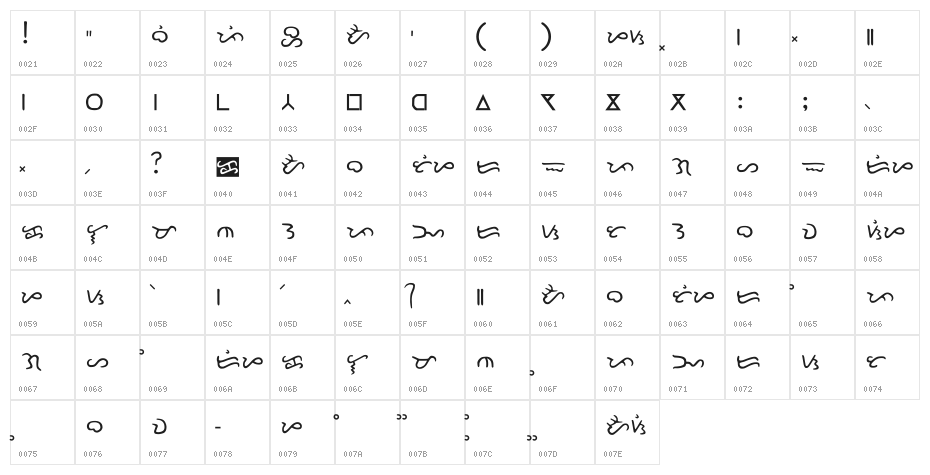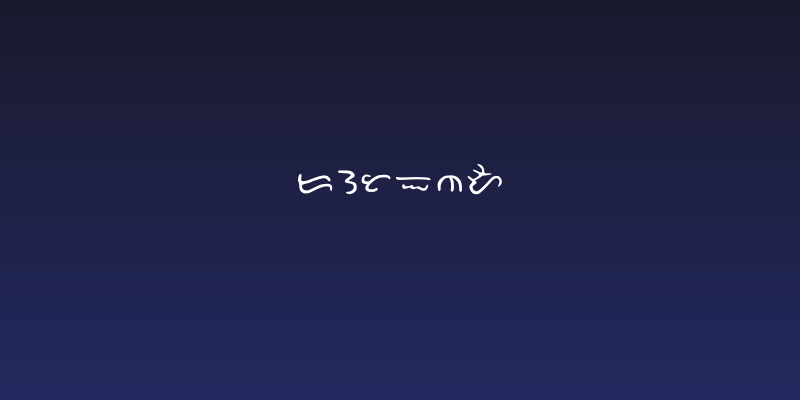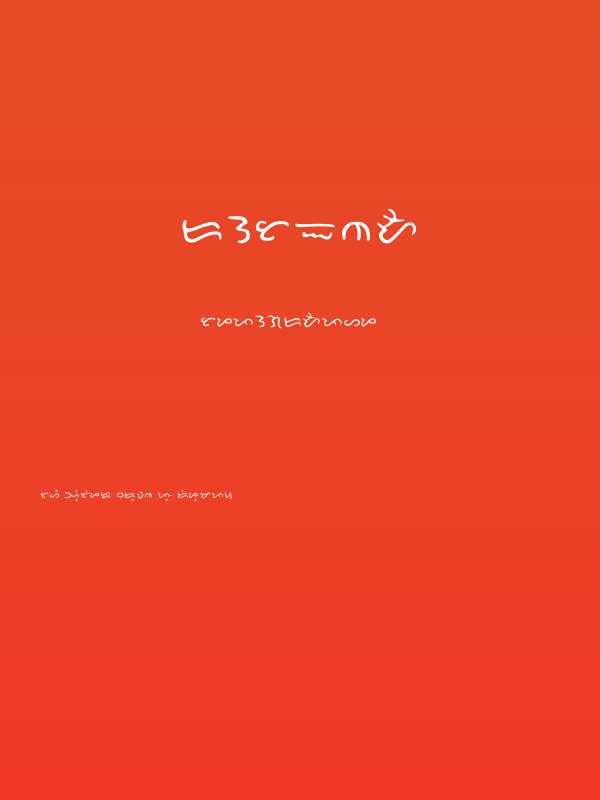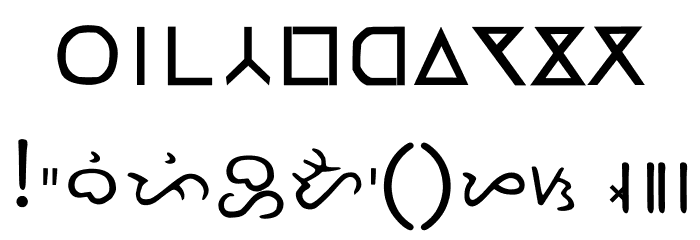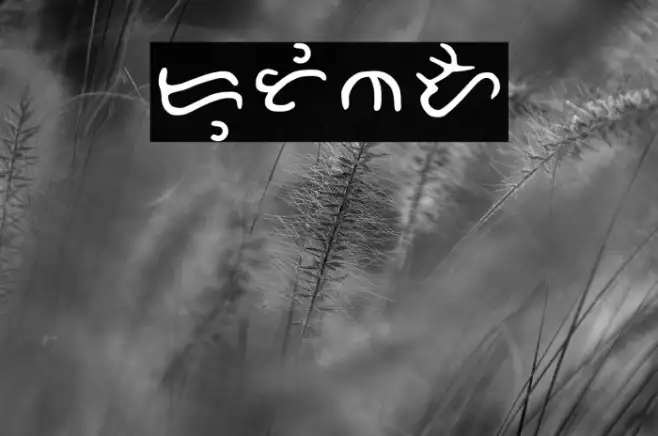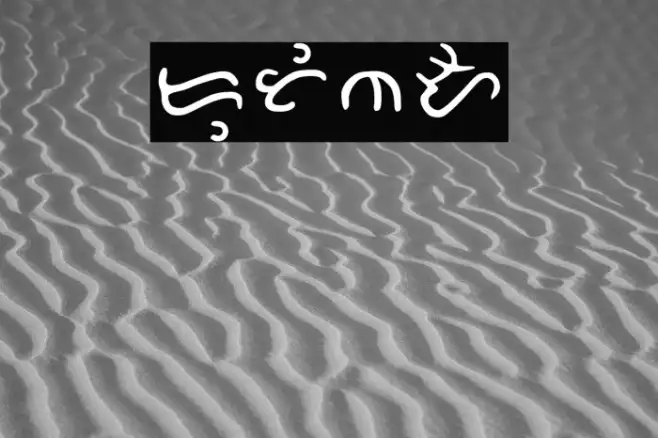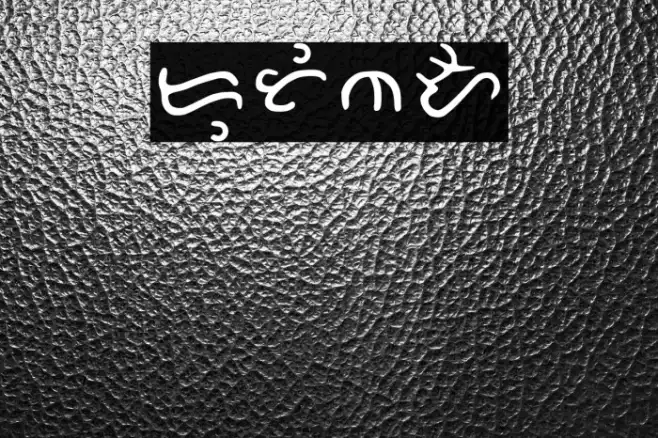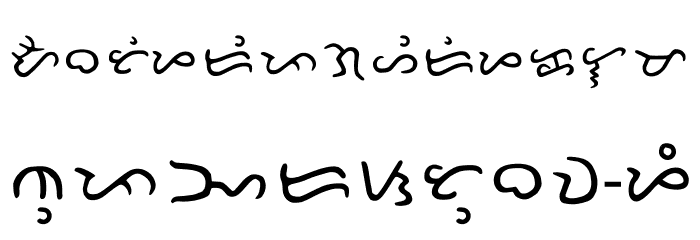
Dutina Font
Dutina Description
This font features a unique and decorative style, characterized by its intricate and flowing letterforms. The characters exhibit a sense of movement and fluidity, with each letter connecting seamlessly to the next. The overall appearance is both artistic and whimsical, making it stand out as a distinctive choice for creative projects. The font includes a full set of uppercase and lowercase letters, numbers, and a variety of special characters, each designed with the same attention to detail and artistic flair.
| Use Case | Logos, Artistic projects, Invitations |
| Proposed Projects | Ideal for creative projects such as invitations, greeting cards, logos, and artistic posters. |